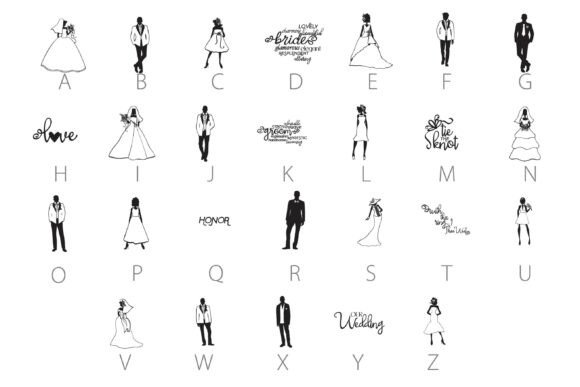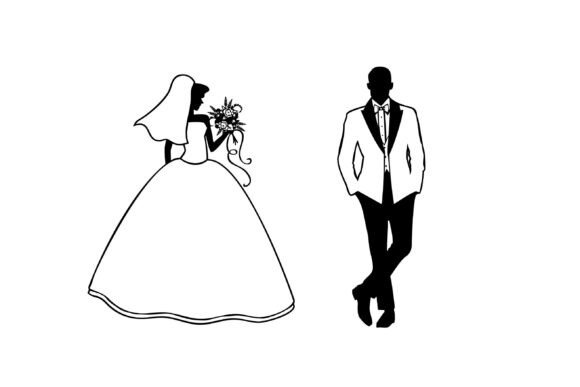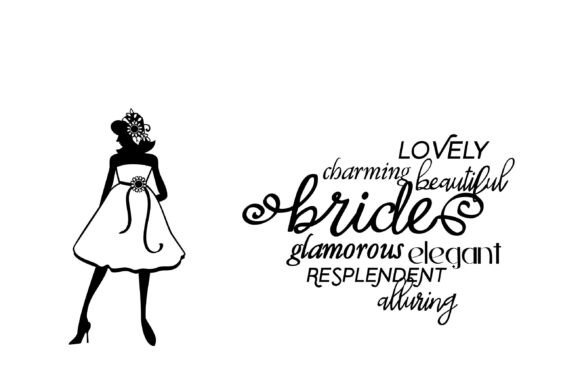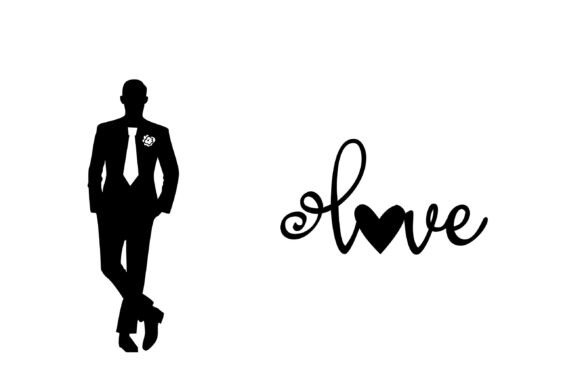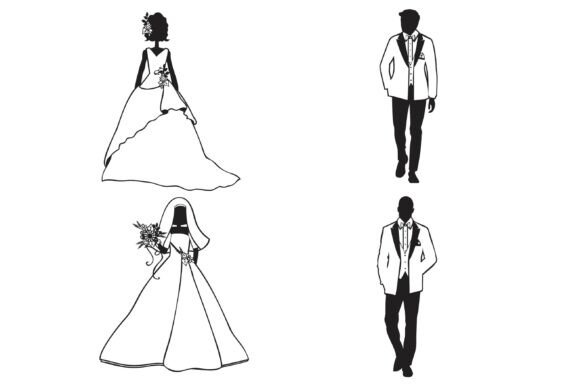
Fall in Love with Fall Love Affair Dingbats Font: Elevate Your Wedding Designs
As a designer or crafter, you’re constantly on the lookout for unique and elegant elements to make your wedding projects stand out. Look no further than the Fall Love Affair Dingbats Font, a stunning collection of wedding-themed silhouettes and decorative scripts that will capture the essence of your clients’ special days. In this article, we’ll dive into the details of this beautiful font and explore how it can elevate your wedding designs.
What is Fall Love Affair Dingbats Font?
Fall Love Affair is a sophisticated collection of wedding-themed silhouettes and decorative scripts, designed to help you create breathtaking wedding projects. This set features beautifully rendered silhouettes of brides and grooms in various classic poses, from traditional ballgowns to modern tailored suits. The silhouettes are complemented by flowing, hand-lettered wedding calligraphy, including phrases like “Tie the Knot” and “Love.”
Key Features of Fall Love Affair Dingbats Font
- Beautifully Rendered Silhouettes: The set includes a range of silhouettes of brides and grooms in classic poses, perfect for creating romantic and elegant wedding designs.
- Decorative Scripts: The collection features hand-lettered wedding calligraphy, including phrases like “Tie the Knot” and “Love,” to add a touch of whimsy and romance to your designs.
- Perfect for Wedding Designers: Fall Love Affair is ideal for independent wedding planners, boutique stationery designers, custom invitation suites, and cinematic “autumn-wedding” social media assets.
Why Choose Fall Love Affair Dingbats Font?
With Fall Love Affair, you’ll have access to a unique and elegant collection of wedding-themed silhouettes and decorative scripts that will set your designs apart. Here are just a few reasons why you should choose Fall Love Affair:
- Elegance and Sophistication: The silhouettes and scripts in Fall Love Affair exude elegance and sophistication, making it perfect for high-end wedding designs.
- Customization: With Fall Love Affair, you can mix and match silhouettes and scripts to create unique and personalized wedding designs that reflect your clients’ styles.
- Time-Saving: The collection is designed to save you time and effort, allowing you to focus on other aspects of your design work.
How to Use Fall Love Affair Dingbats Font
Fall Love Affair is incredibly versatile and can be used in a variety of ways to elevate your wedding designs. Here are a few ideas to get you started:
- Wedding Invitations: Use the silhouettes and scripts to create stunning wedding invitations that set the tone for the big day.
- Social Media Assets: Create beautiful social media assets, such as Instagram graphics and Facebook posts, to promote your clients’ autumn weddings.
- Stationery and Paper Goods: Use Fall Love Affair to create elegant stationery and paper goods, such as wedding programs, place cards, and thank-you cards.
Tips and Tricks for Working with Fall Love Affair
To get the most out of Fall Love Affair, here are a few tips and tricks to keep in mind:
- Experiment with Different Combinations: Don’t be afraid to mix and match silhouettes and scripts to create unique and personalized designs.
- Pay Attention to Details: Take the time to ensure that your designs are cohesive and polished, paying attention to details like font sizes, colors, and spacing.
- Have Fun: Most importantly, have fun and be creative! Fall Love Affair is designed to inspire you and help you create breathtaking wedding designs.
Fall Love Affair Dingbats Font is a game-changer for designers and crafters looking to elevate their wedding designs. With its beautifully rendered silhouettes and decorative scripts, this collection has everything you need to create stunning and elegant wedding projects. Whether you’re working on wedding invitations, social media assets, or stationery and paper goods, Fall Love Affair is the perfect choice. So why wait? Fall in love with Fall Love Affair today and take your wedding designs to the next level!